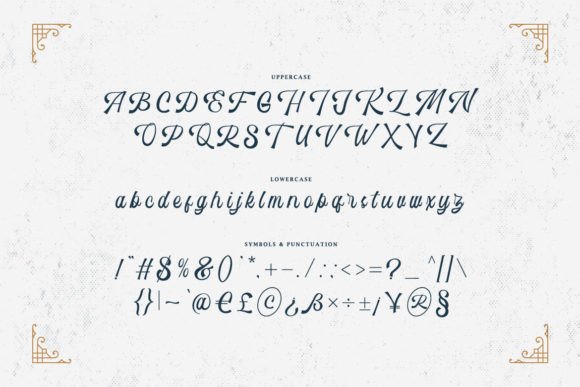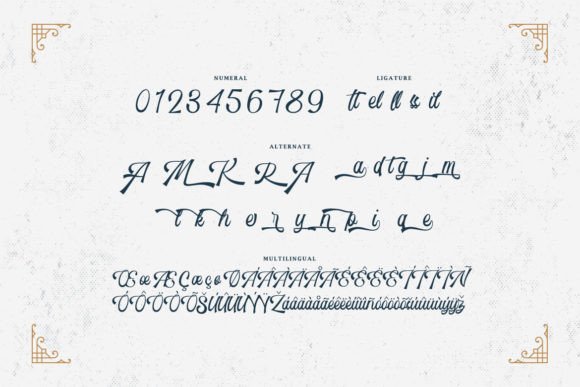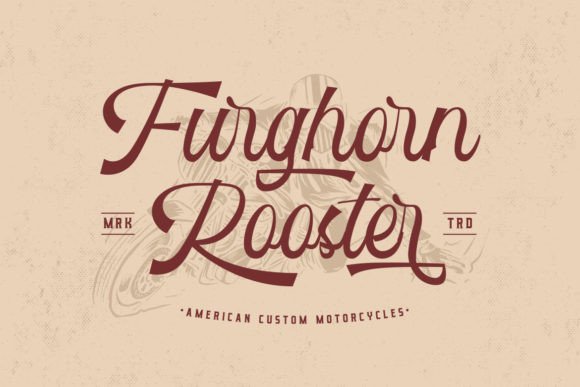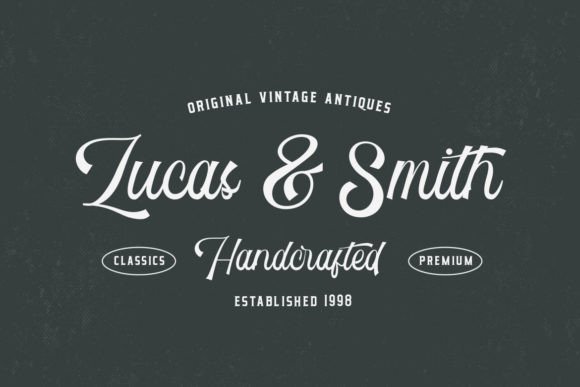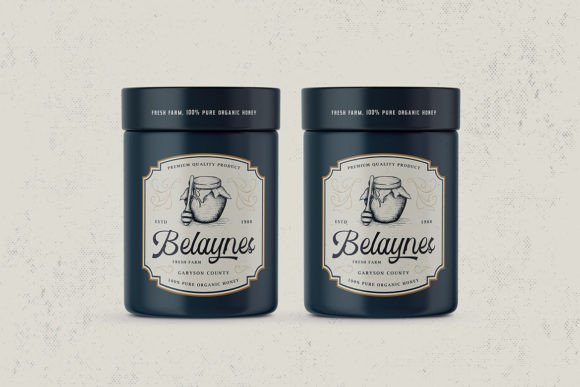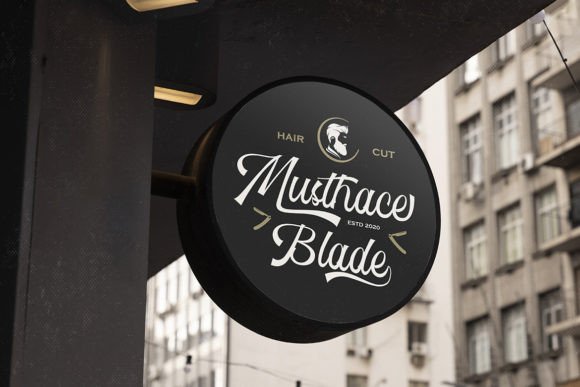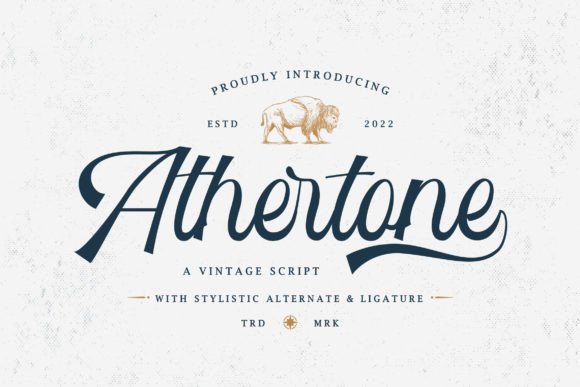
Athertone Font: The Ultimate Vintage Script Font for Creative Projects
Are you a designer, crafter, or DIY enthusiast looking for a unique and versatile font to elevate your creative projects? Look no further than Athertone Font, a stunning vintage script font that’s perfect for a wide range of applications. In this article, we’ll dive into the world of Athertone Font, exploring its features, uses, and benefits, and show you how to make the most of this incredible font.
What is Athertone Font?
Athertone Font is a one-of-a-kind vintage script font that’s designed to add a touch of elegance and sophistication to your designs. With its intricate lettering and classic style, this font is perfect for creating beautiful wedding invitations, retro stationery art, eye-catching social media posts, labels, logos, and more.
Key Features of Athertone Font
- Unique and Versatile Style: Athertone Font boasts an incredibly versatile style that’s perfect for a wide range of creative projects.
- Vintage Script Style: This font features a beautiful vintage script style that’s reminiscent of classic wedding invitations and retro stationery.
- Elegant and Sophisticated: Athertone Font adds a touch of elegance and sophistication to any design, making it perfect for high-end branding and marketing materials.
Uses of Athertone Font
Athertone Font is an incredibly versatile font that can be used for a wide range of creative projects, including:
- Wedding Invitations: Create beautiful and elegant wedding invitations that set the tone for your special day.
- Retro Stationery Art: Add a touch of vintage charm to your stationery with Athertone Font.
- Social Media Posts: Create eye-catching social media posts that stand out from the crowd.
- Labels and Logos: Use Athertone Font to create custom labels and logos for your business or brand.
- Web Design: Add a touch of elegance to your website with Athertone Font.
- Quotes and Posters: Create inspiring quotes and posters that showcase your creativity.
- Workshops and Events: Use Athertone Font to create promotional materials for your workshops and events.
Benefits of Using Athertone Font
So why choose Athertone Font for your creative projects? Here are just a few benefits of using this amazing font:
- Stand Out from the Crowd: Athertone Font is a unique and distinctive font that will help your designs stand out from the crowd.
- Elegance and Sophistication: This font adds a touch of elegance and sophistication to any design, making it perfect for high-end branding and marketing materials.
- Versatility: Athertone Font can be used for a wide range of creative projects, making it a great addition to any designer’s toolkit.
Tips for Using Athertone Font
Here are a few tips for getting the most out of Athertone Font:
- Experiment with Different Sizes and Colors: Try out different sizes and colors to see what works best for your design.
- Pair with Other Fonts: Pair Athertone Font with other fonts to create a unique and interesting look.
- Use for Headlines and Titles: Use Athertone Font for headlines and titles to add a touch of elegance and sophistication.
- Don’t be Afraid to Get Creative: Don’t be afraid to experiment and try new things with Athertone Font.